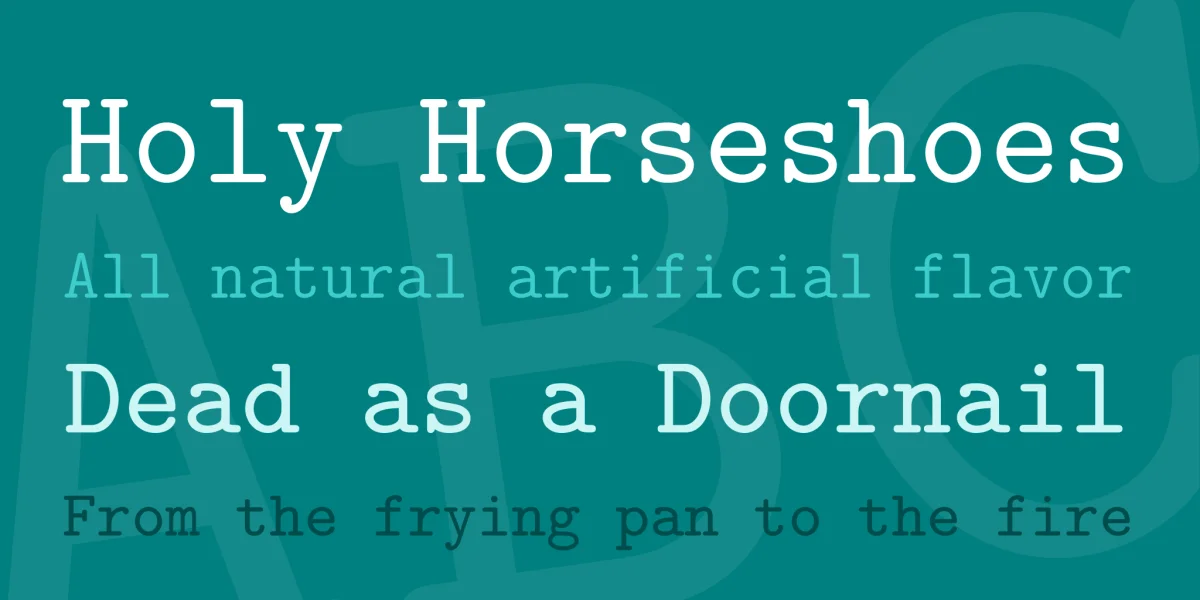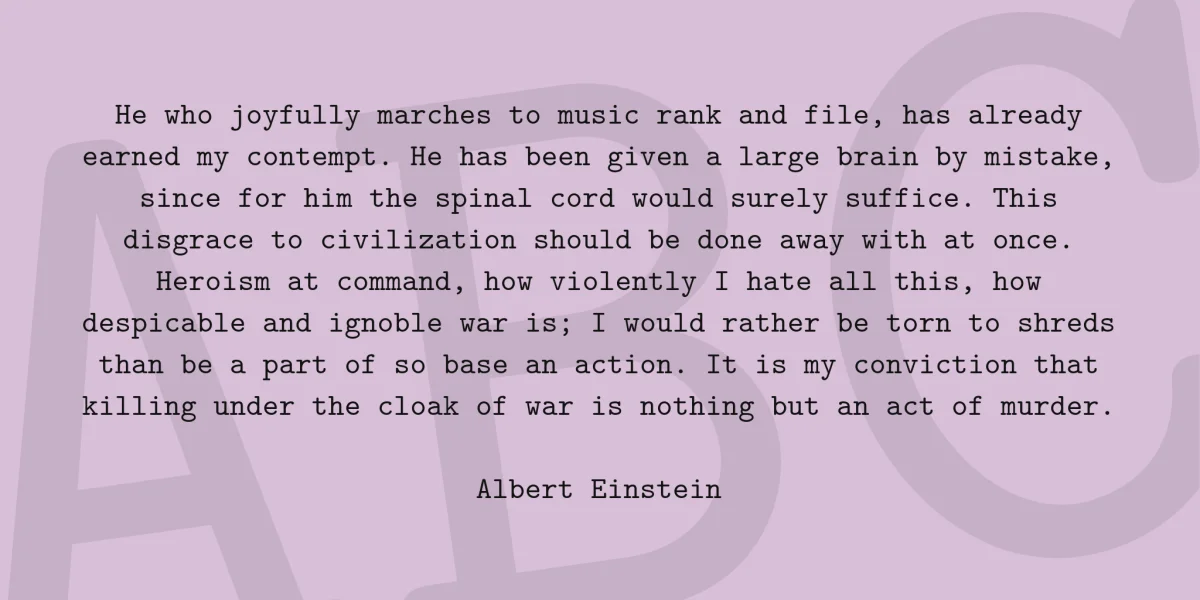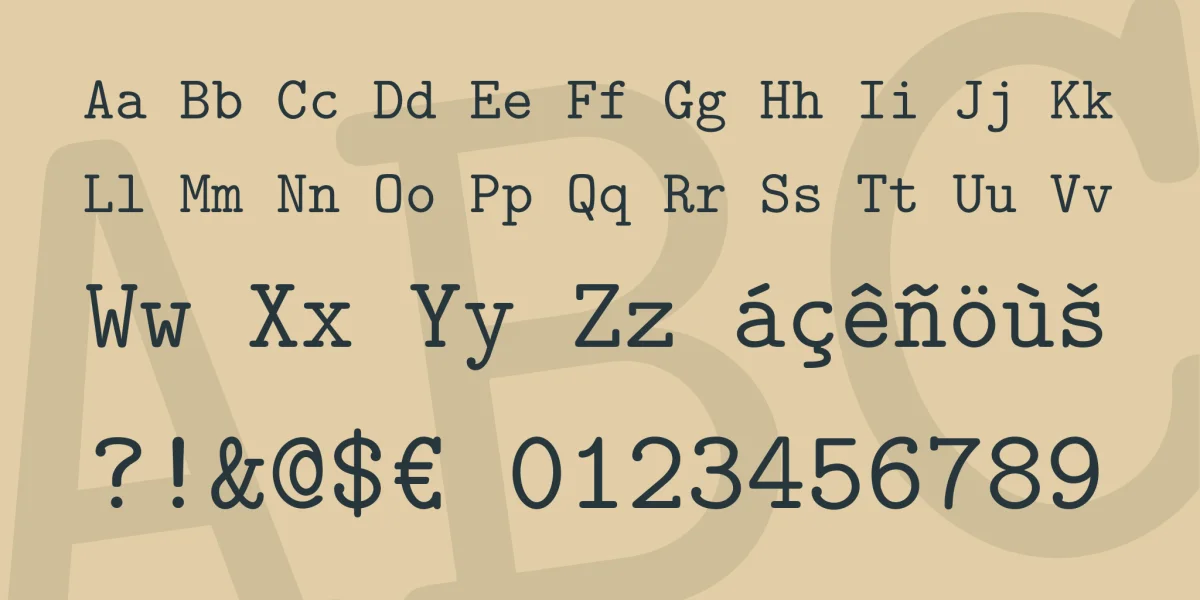
The Latin Modern fonts are derived from the famous Computer Modern fonts designed by Donald E. Knuth and described in Volume E of his Computers & Typesetting series.